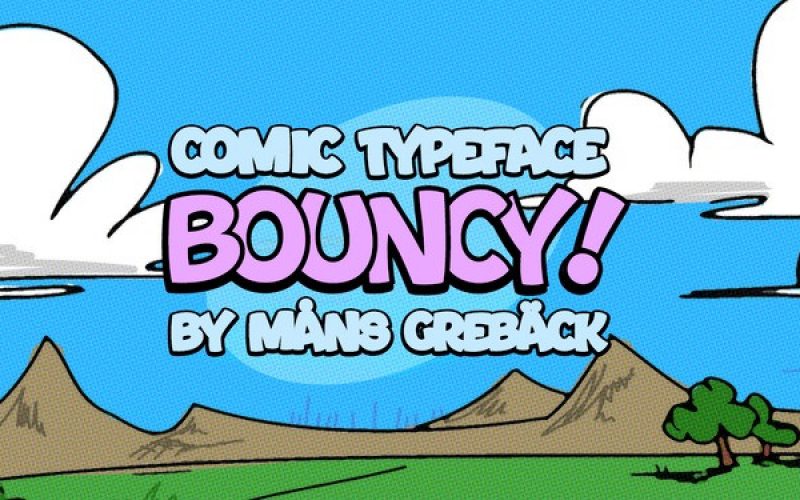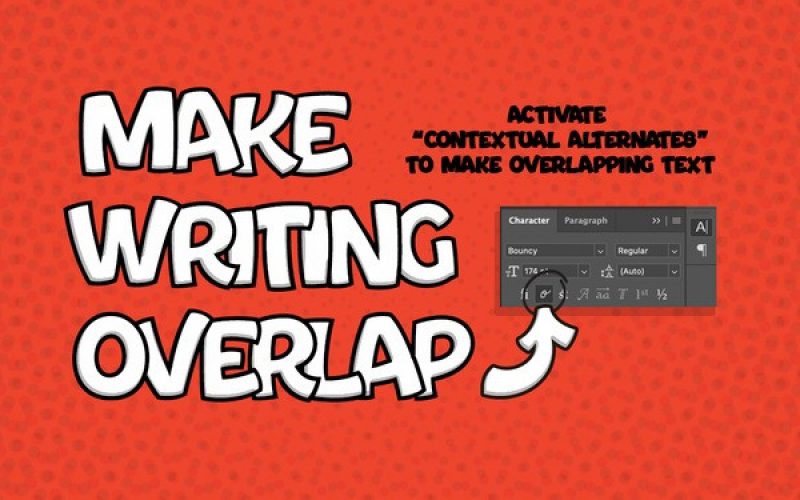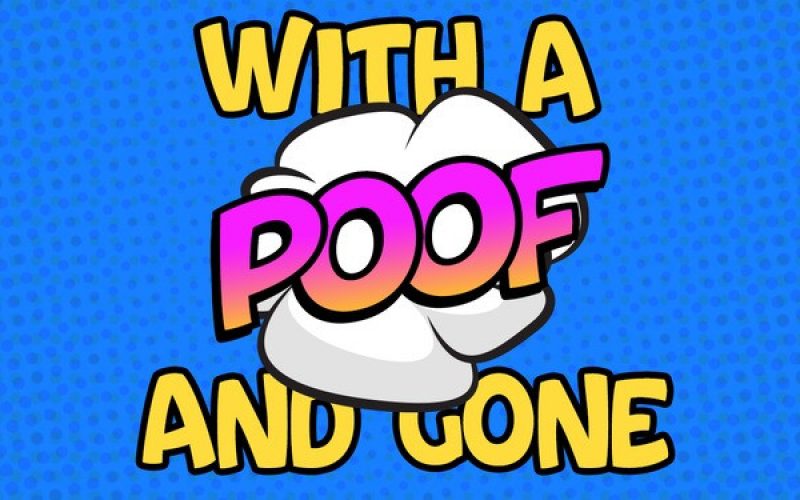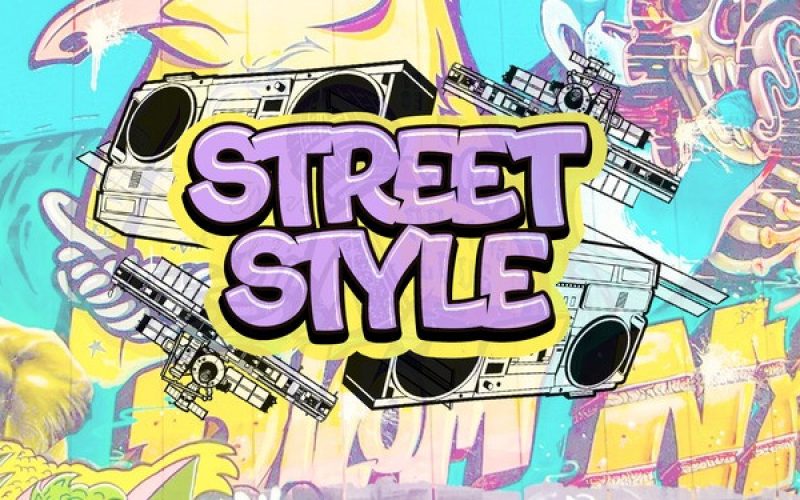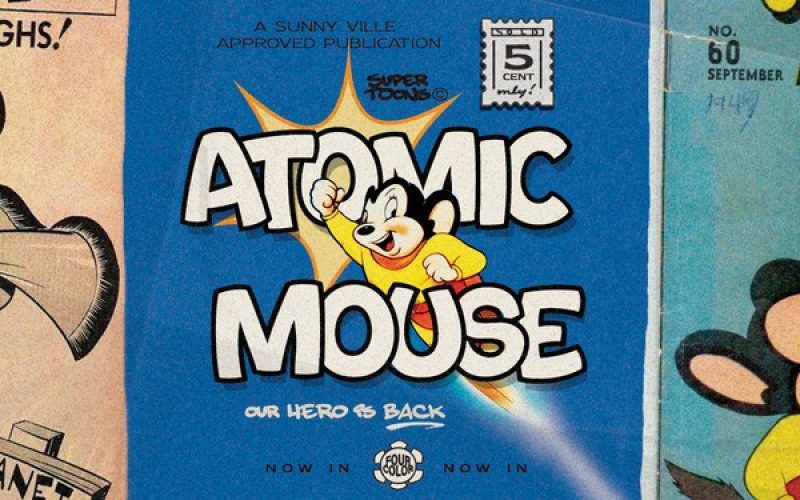
Bouncy Display Font
Bouncy is a funny cartoon font, a comic-style lettering with a happy, quirky personality and optimistically bold appearance.
Designer Name: | Måns Grebäck |
Classification: | Comic Cartoon, Display, Fancy |